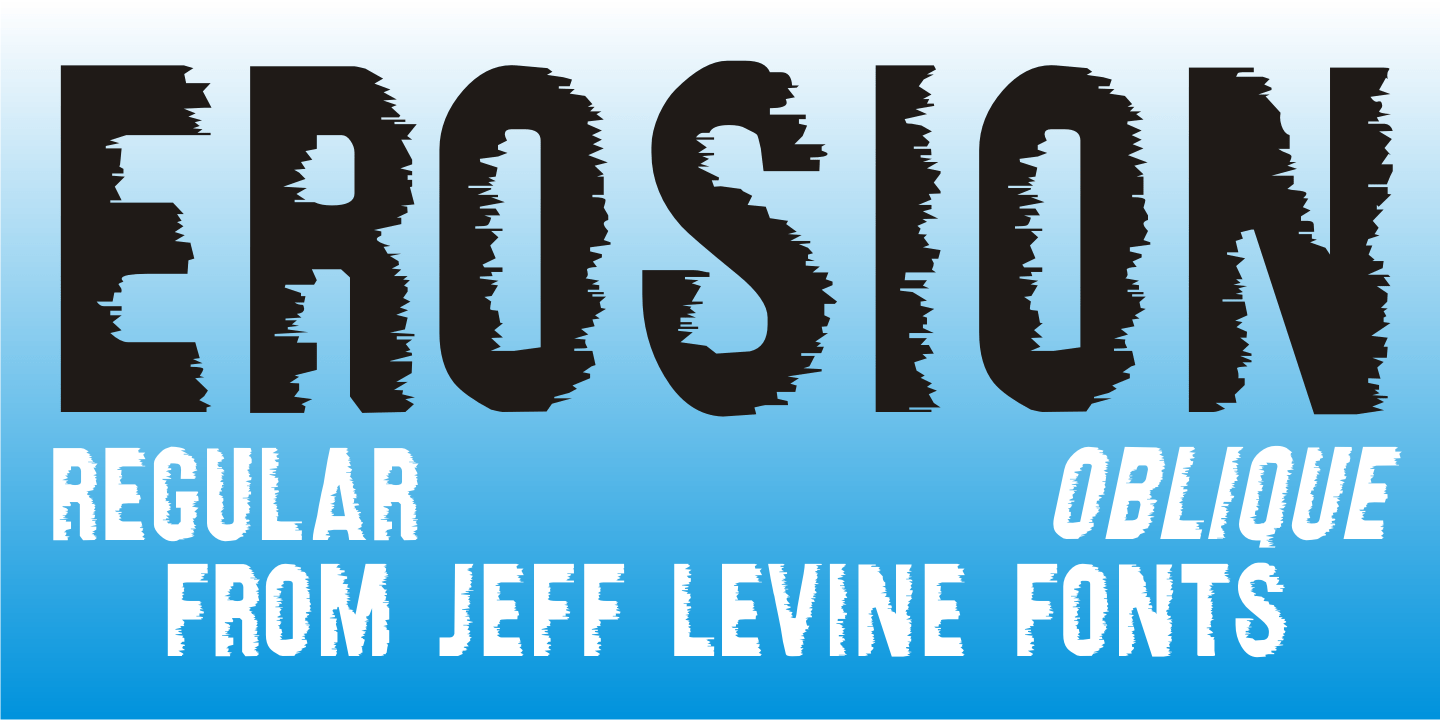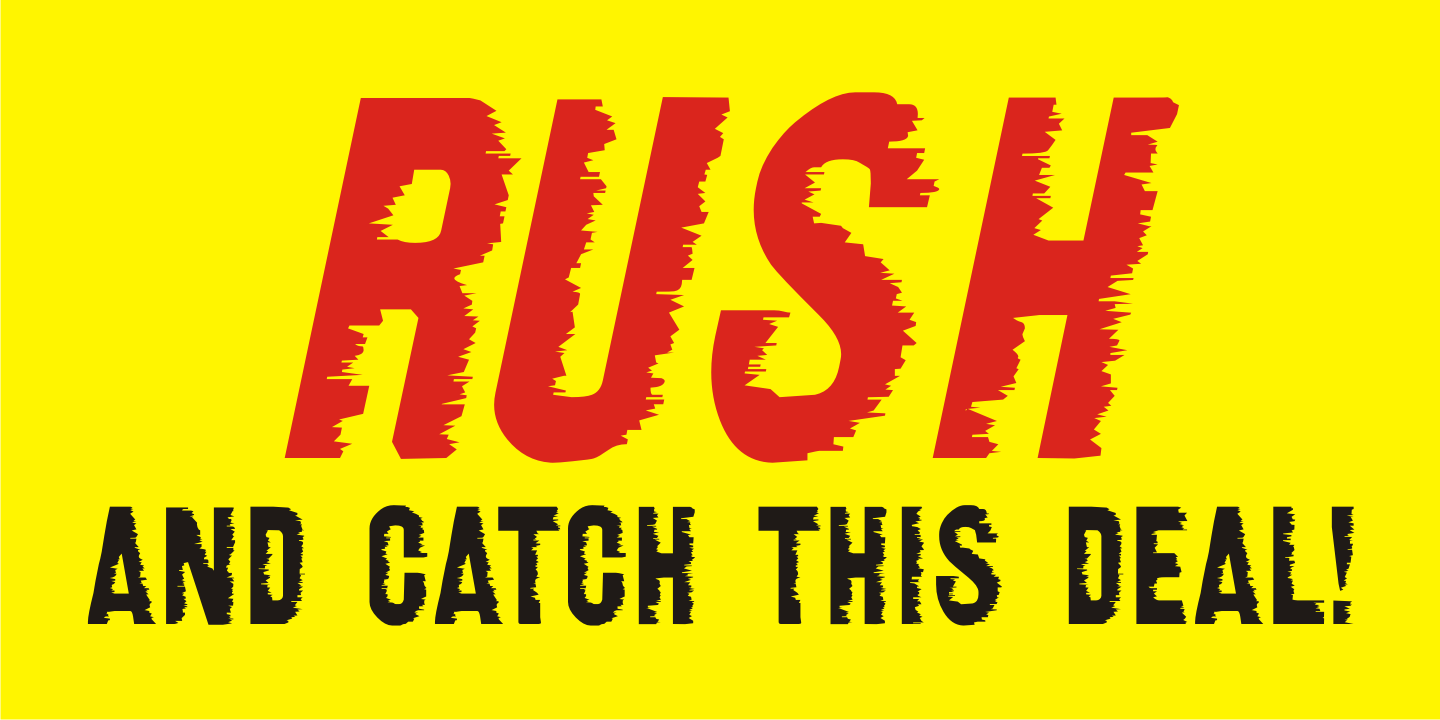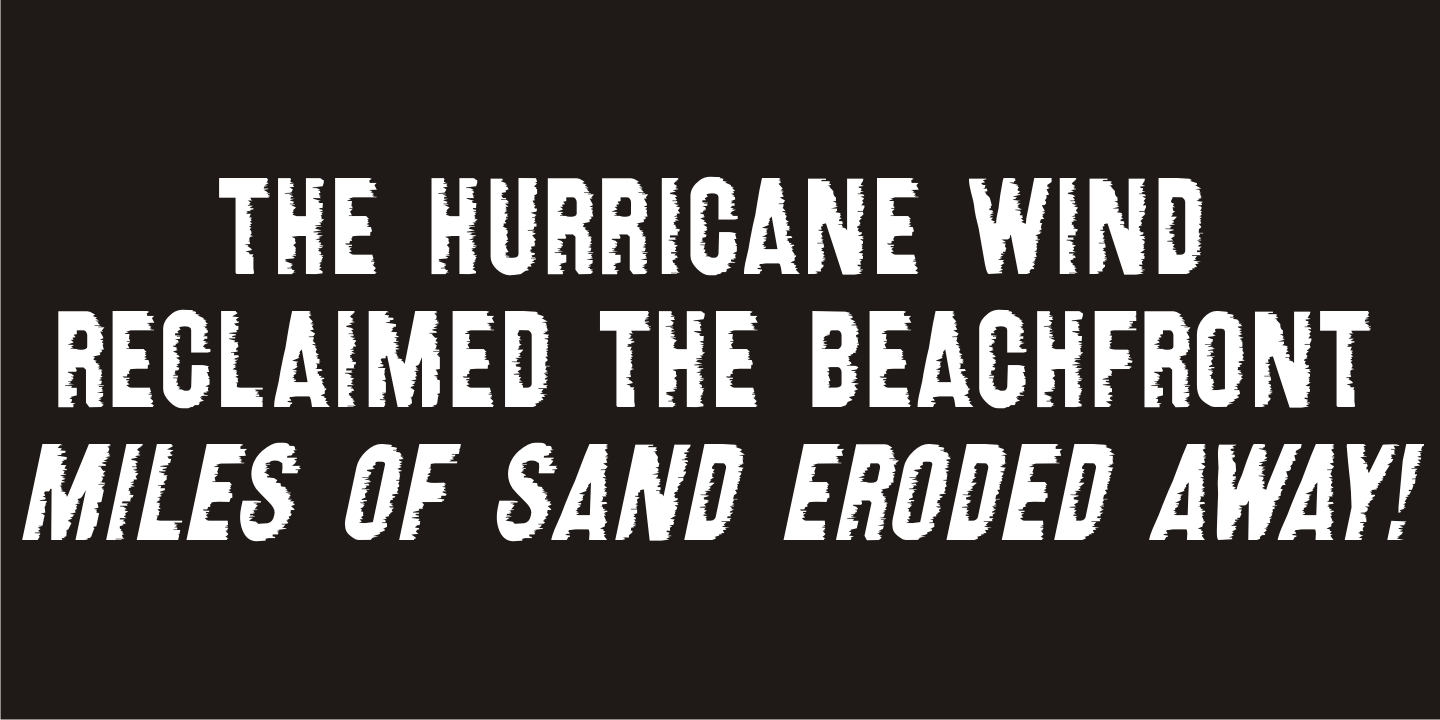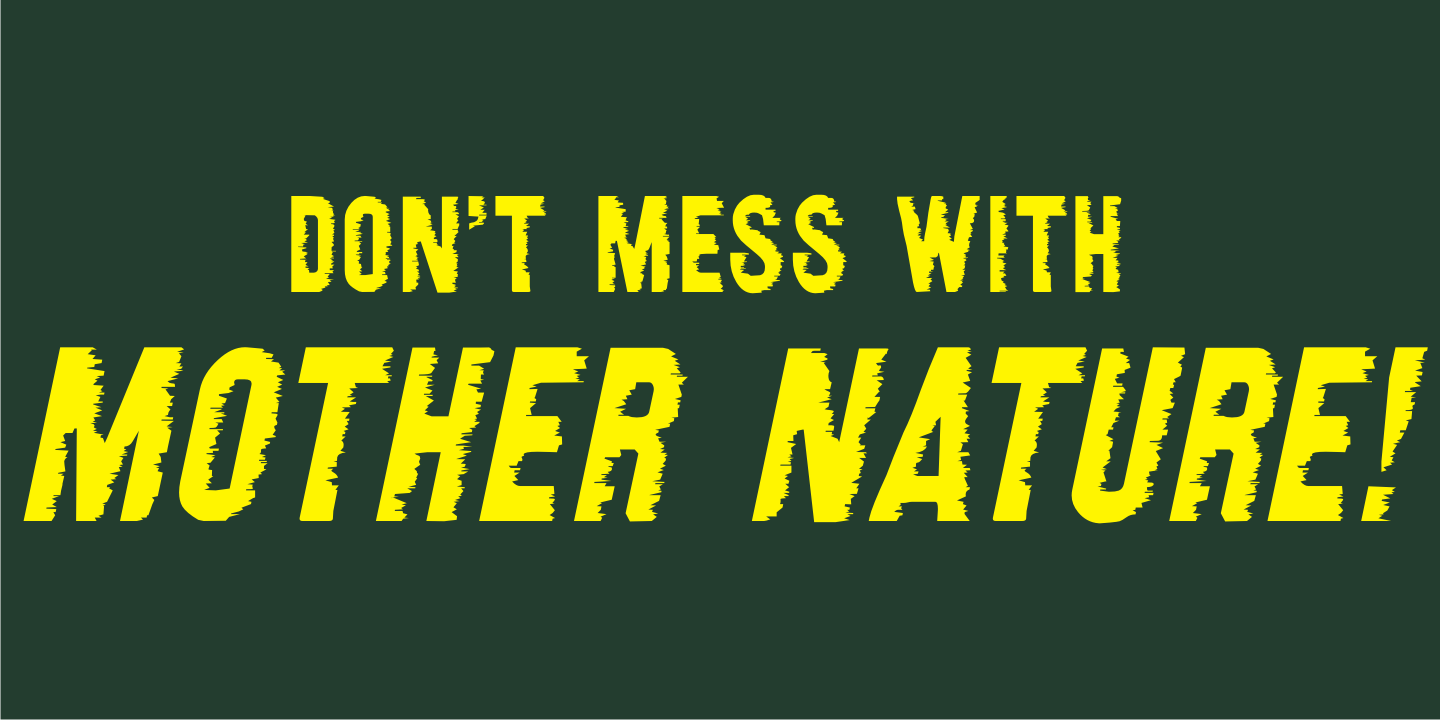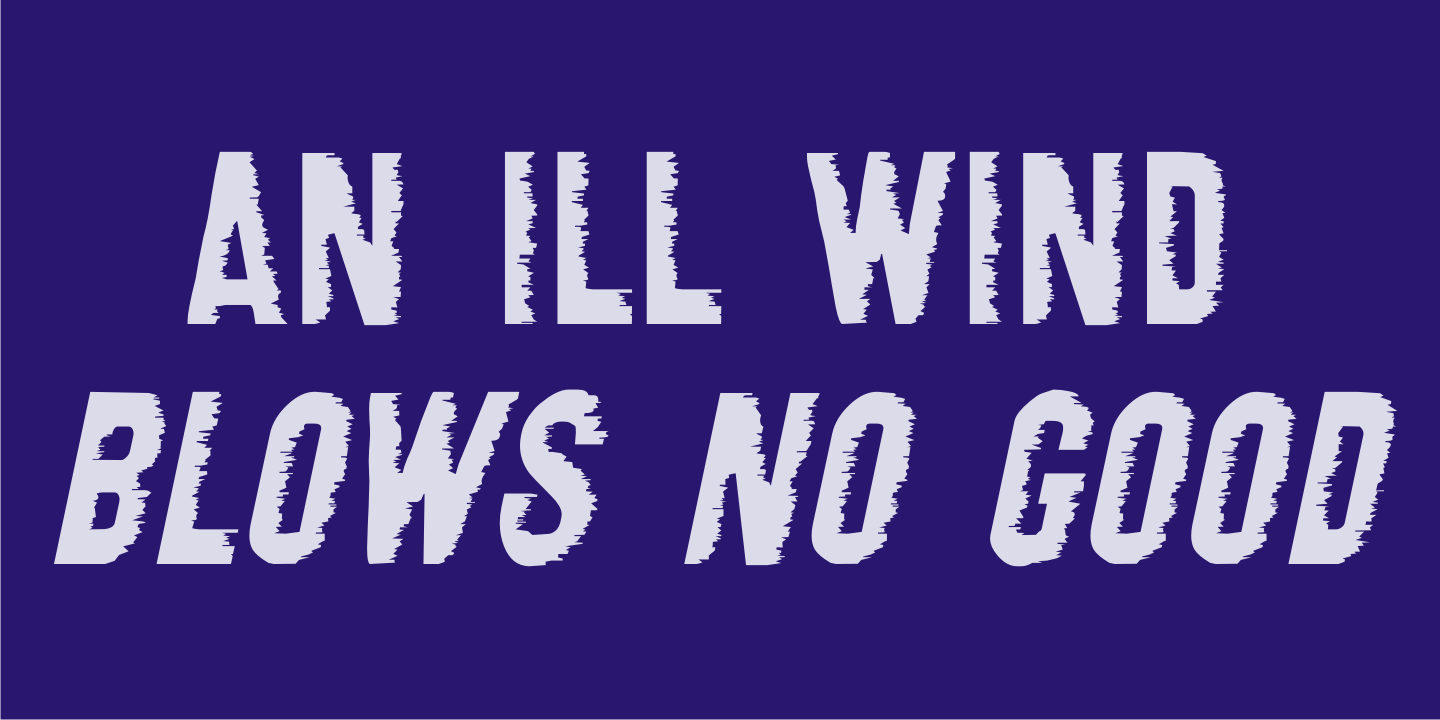
Erosion
Take a classic sans serif typeface, run it through a filter for a 'wind” effect then auto-trace the design. The result: A broken, jagged and rough type font called Erosion JNL.